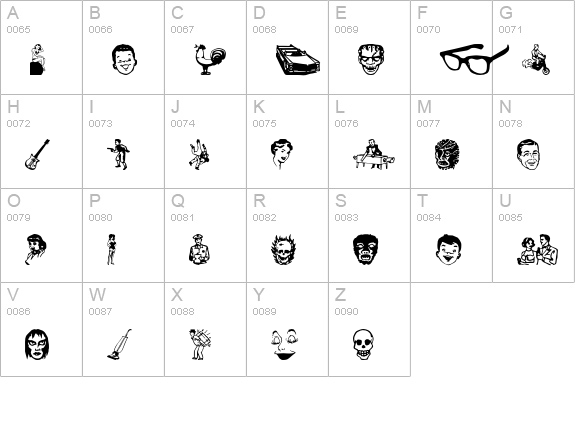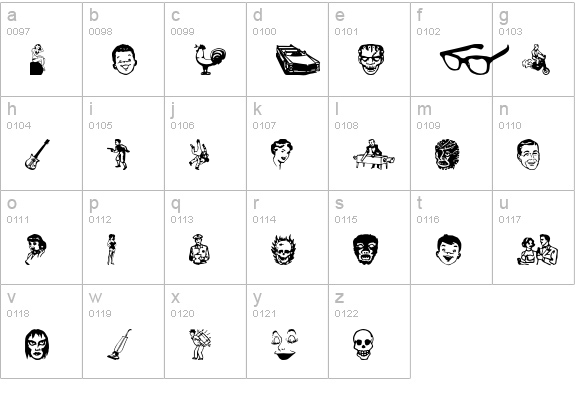
Klippy-Dingbats Font Details
Introducing Klippy-Dingbats, a whimsical and playful font that will instantly add a touch of fun to any project. With its unique and intricate designs, this font is perfect for adding decorative elements, embellishments, or even creating eye-catching icons. Klippy-Dingbats is not only visually stunning, but it is also versatile and easy to use. Whether you are designing invitations, greeting cards, posters, or simply want to add a touch of creativity to your personal projects, Klippy-Dingbats has got you covered. But what makes Klippy-Dingbats even more irresistible is the fact that it is completely free! Yes, you read that right. This amazing font is freely available to download at FontsMarket.com. Now you can access this enchanting font without spending a dime, allowing you to unleash your creativity without any limitations. So why wait? Download Klippy-Dingbats today and let your imagination run wild. Add a dash of magic and whimsy to your designs and watch them come to life. With Klippy-Dingbats, the possibilities are endless. Don't miss out on this incredible opportunity to enhance your projects with this stunning font. Get it now, completely free, at FontsMarket.com!